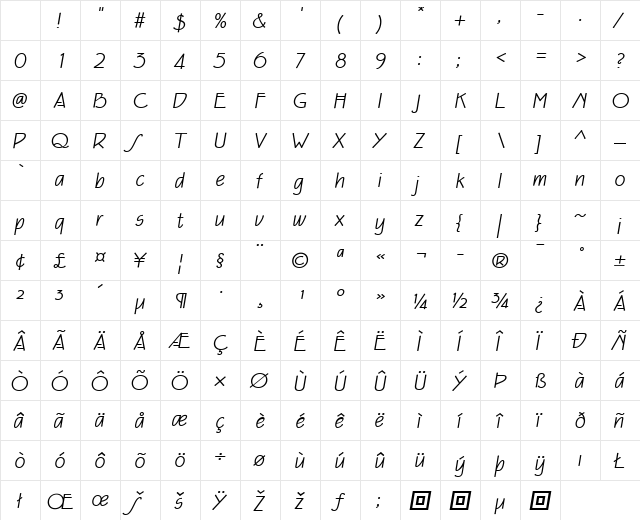
EaglefeatherInformal Italic Free Font
EaglefeatherInformal Italic
Foundry: The Frank Lloyd Wright Foundation. This product has been developed in cooperation with the Frank Lloyd Wright Foundation (Taliesin West, Scottsdale, Arizona). A portion of the sales supports the conservation and education programs of
Design Context for EaglefeatherInformal
EaglefeatherInformal is a composed and adaptable typeface that performs quietly and consistently across a wide range of design contexts. The slanted form adds forward momentum and visual energy.
Pro Tip: Use EaglefeatherInformal for emphasis, pull quotes, and subheadings where its slanted energy can add rhythm to the layout.
This font was published by The Frank Lloyd Wright Foundation. This product has been developed in cooperation with the Frank Lloyd Wright Foundation (Taliesin West, Scottsdale, Arizona). A portion of the sales supports the conservation and education programs of. Check the technical specs section for copyright and designer details.